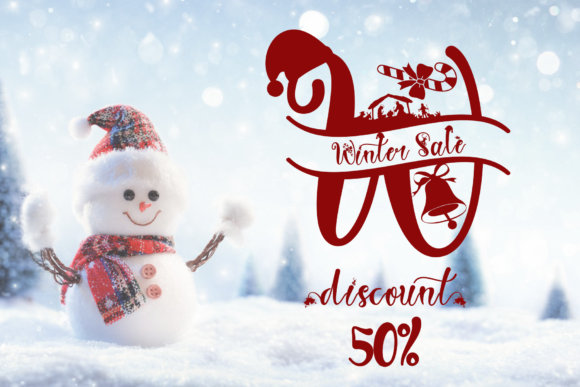
Sweet Christmas Monogram is a festive, warm and romantic handwritten font. Add this fabulous choice to your winter designs and notice how easily they come to life. Sweet Christmas Monogram is PUA encoded which means you can access all of the amazing glyphs and ligatures with ease!
Sweet Christmas Monogram Font